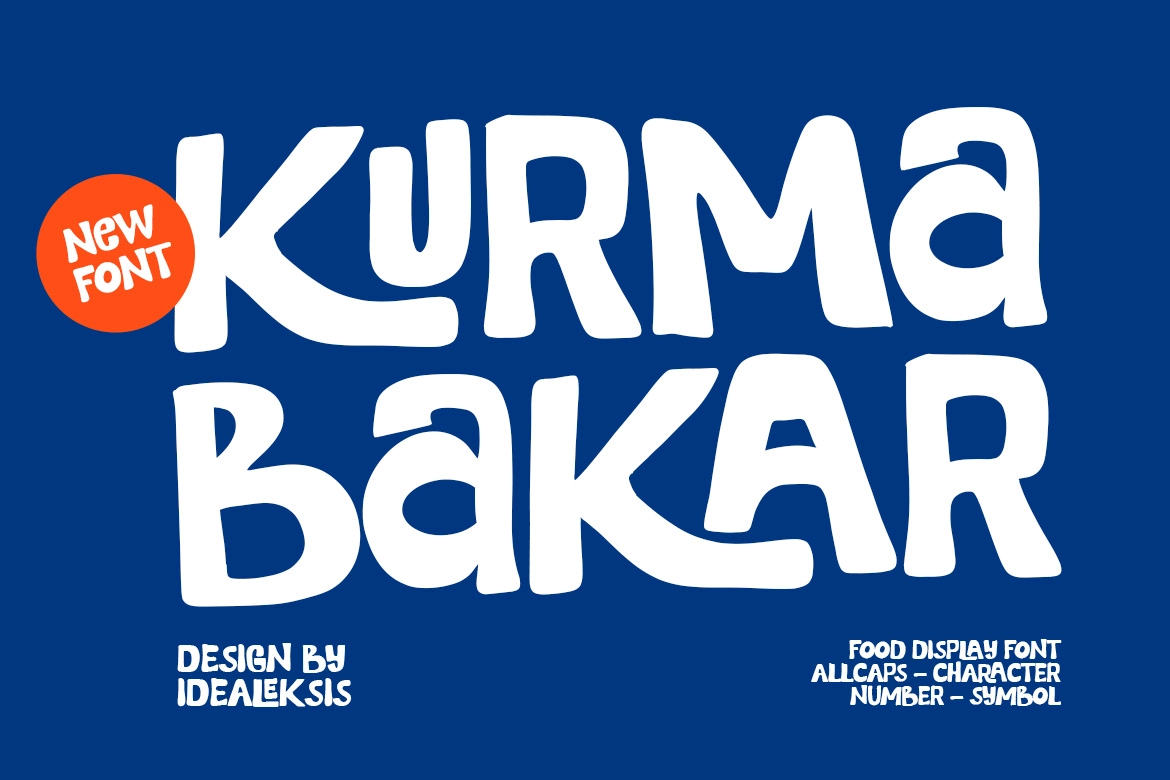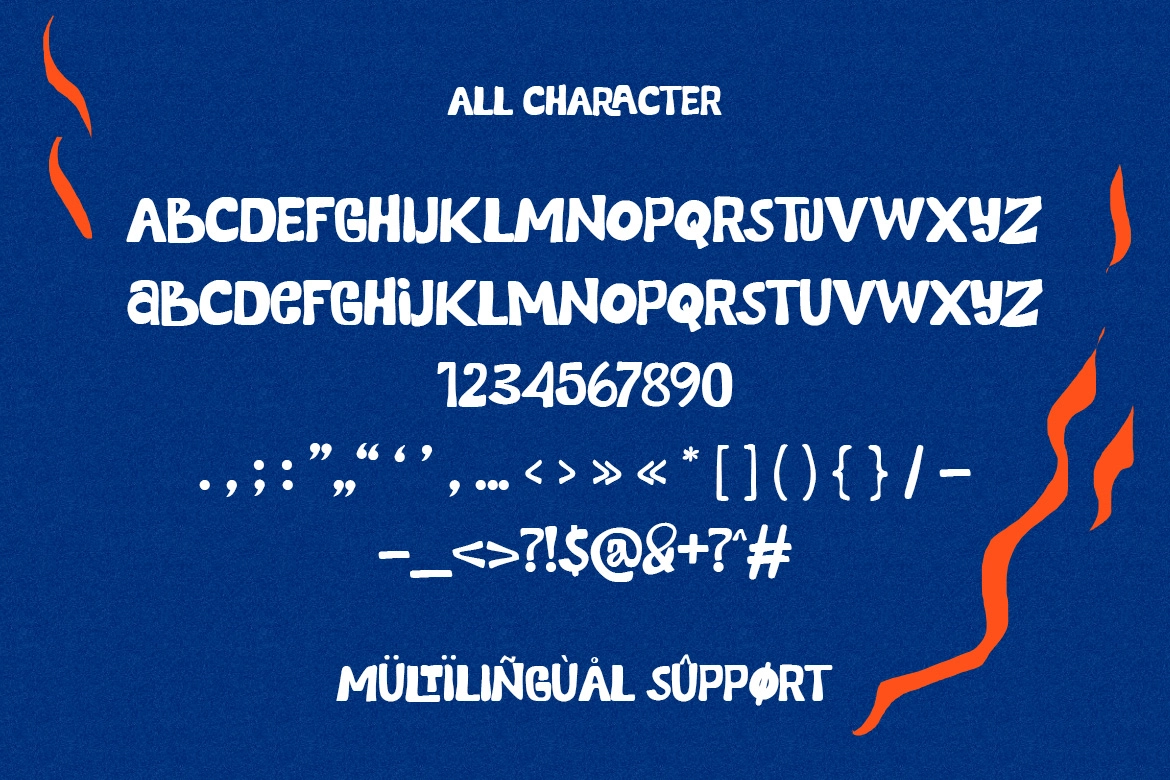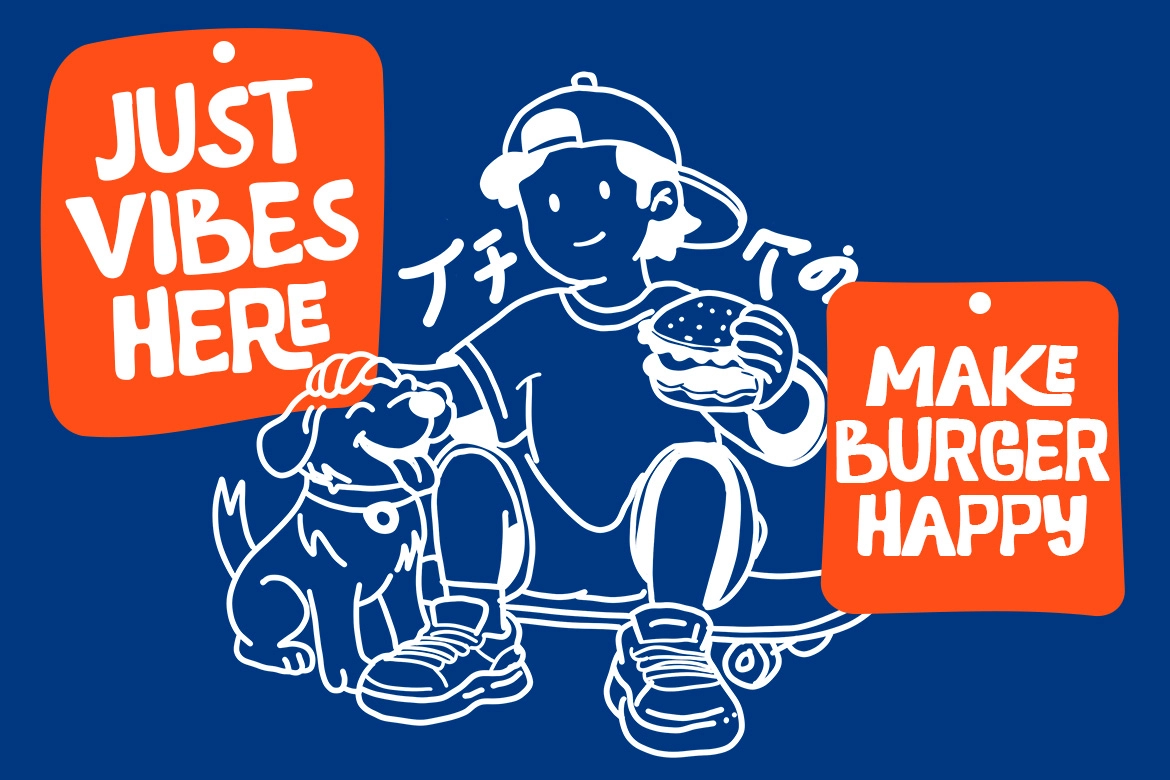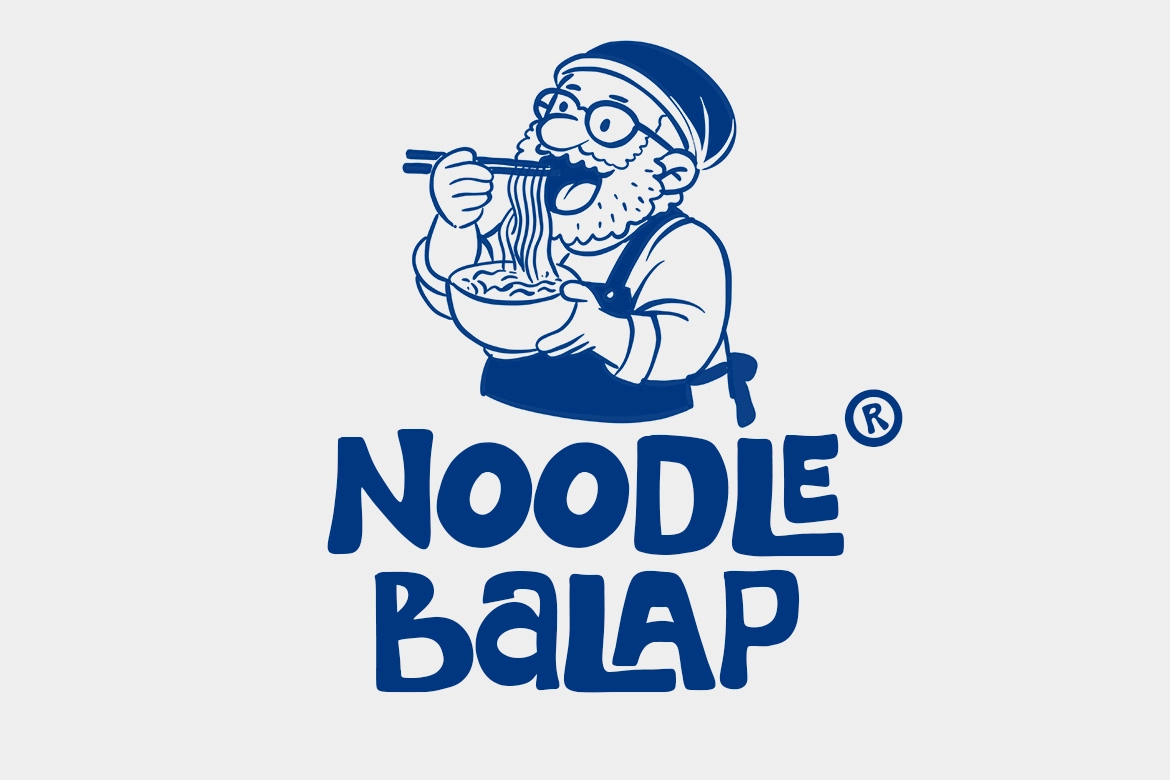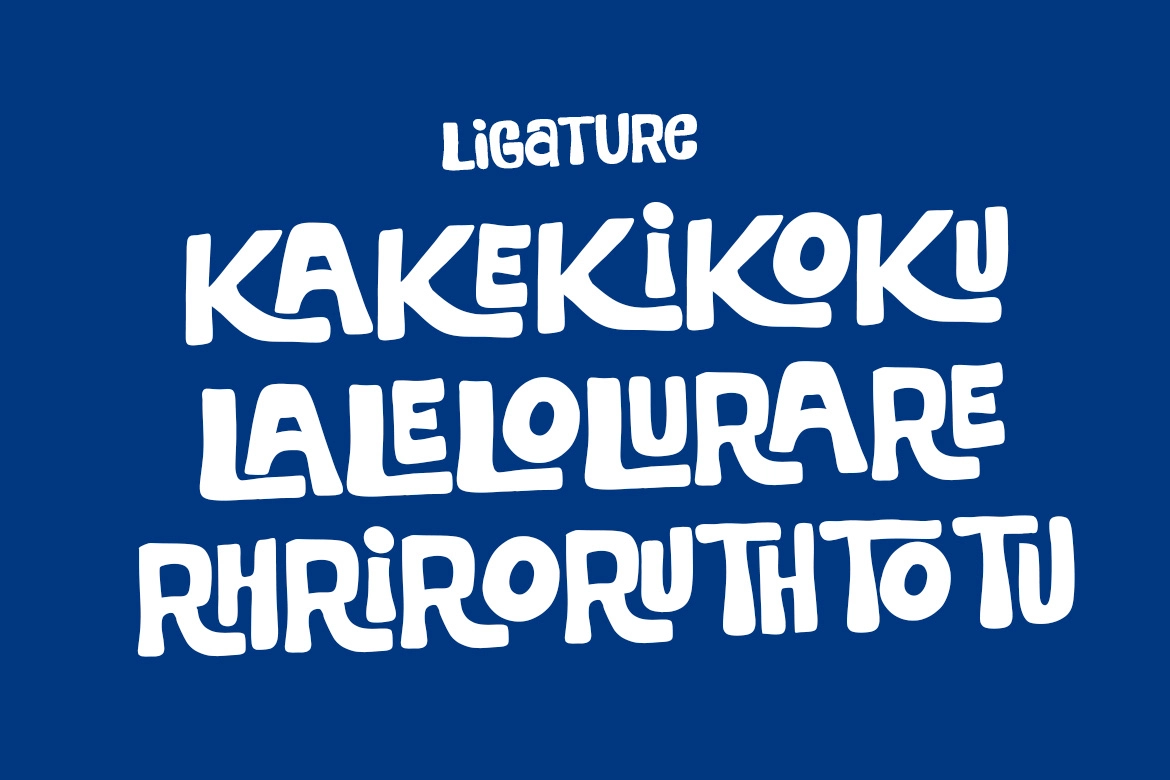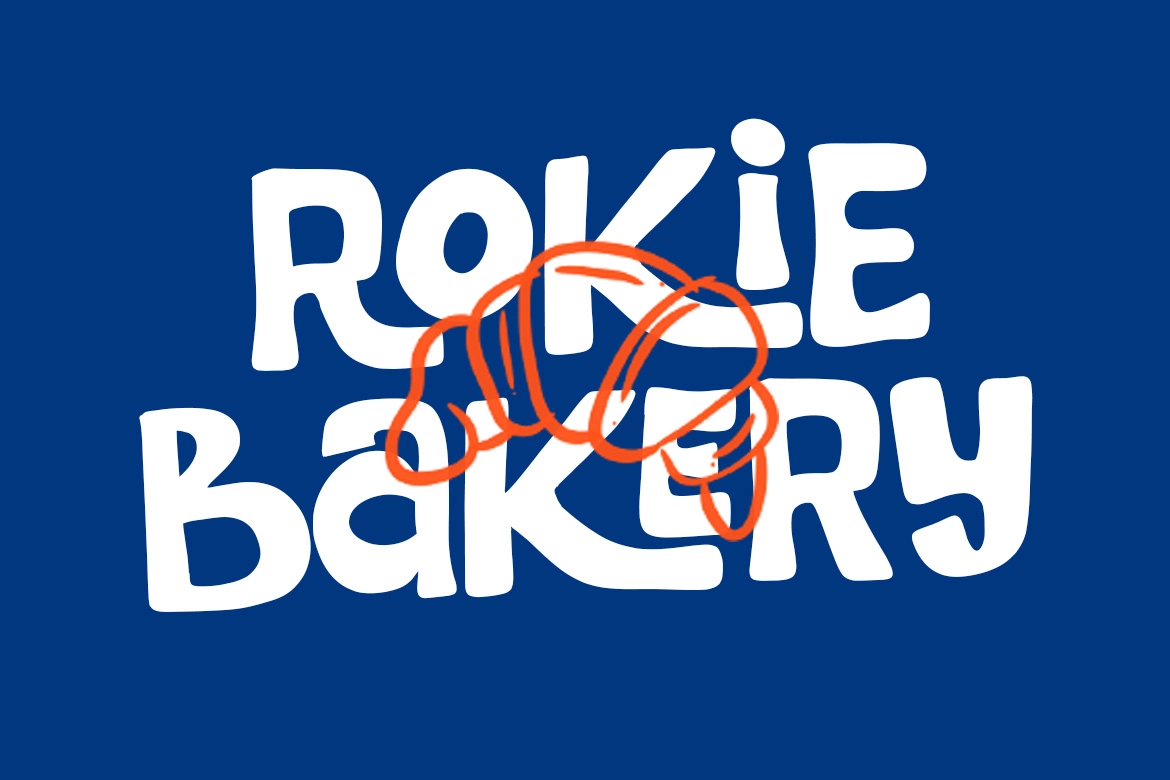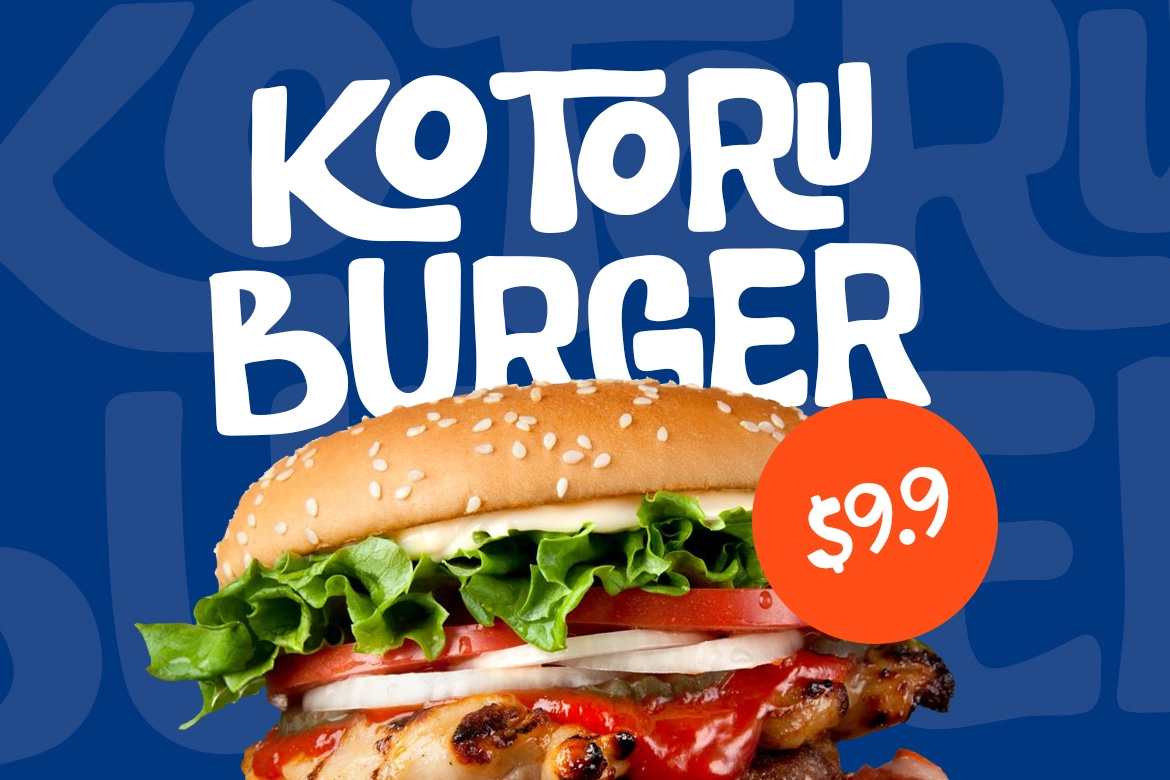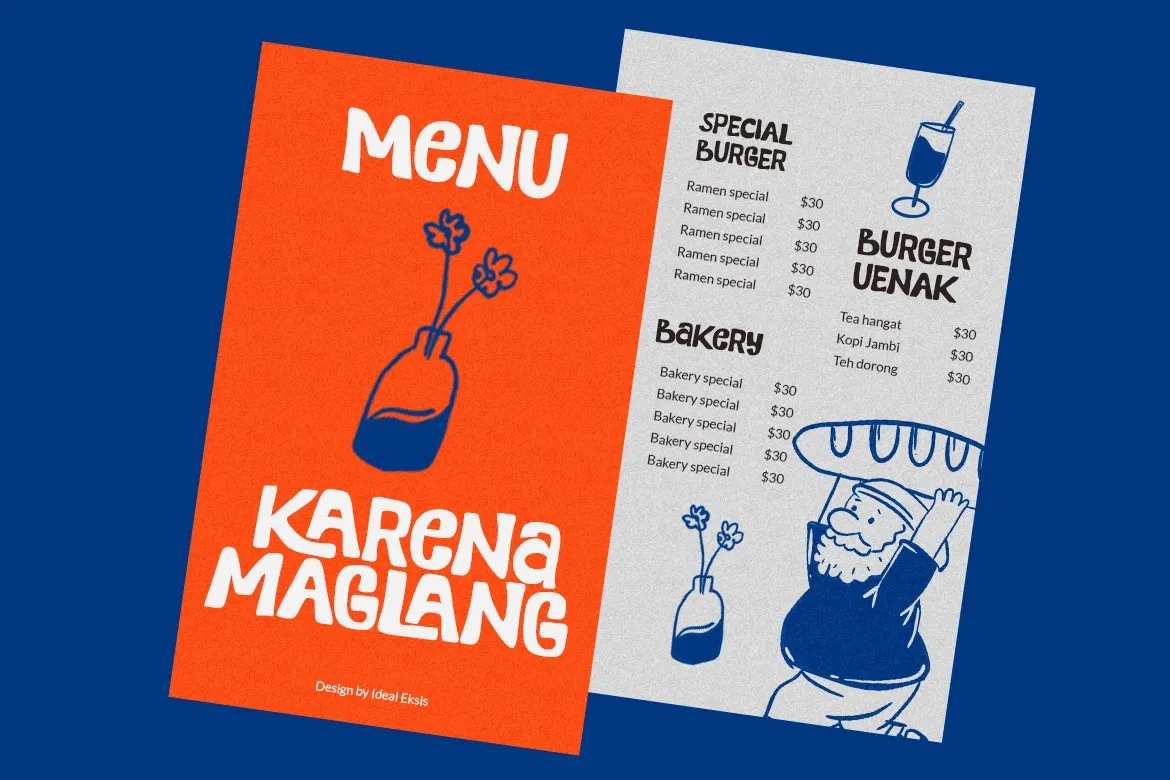
Kurma Bakar - Playful Rounded Display Font
Kurma Bakar
Kurma Bakar – Playful Rounded Display Font is a bold and expressive typeface with a handcrafted, cut-out character. Its chunky shapes, uneven edges, and soft rounded corners create a lively and approachable look, making this playful rounded display font perfect for designs that need personality and visual warmth.
The irregular letterforms and organic flow give it a natural, handmade feel, while the all-caps structure ensures strong readability and impact. Whether you're designing for food branding, packaging, or fun promotional materials, Kurma Bakar brings energy and charm to every composition.
- Uppercase and Lowercase
- Punctuation
Perfect For:
- Food branding
- Product packaging
- Restaurant menus
- Social media graphics
- Creative posters